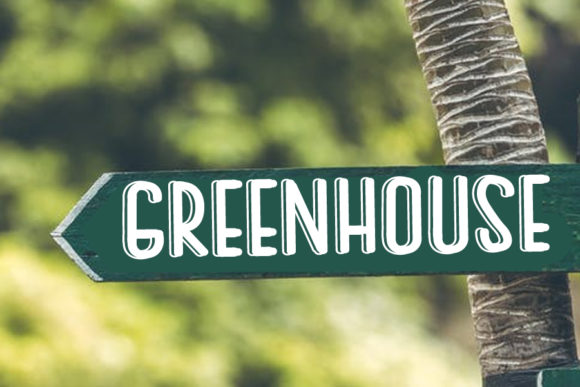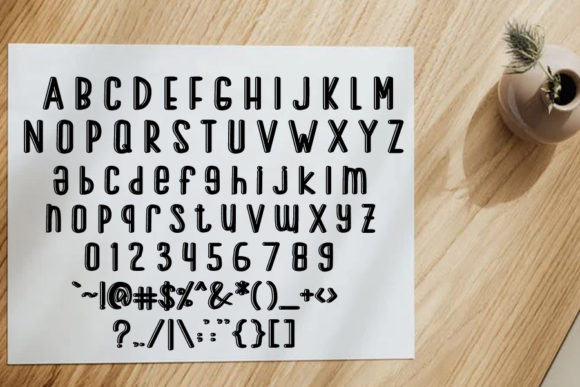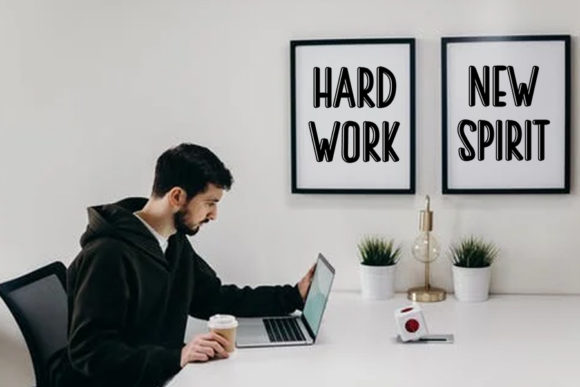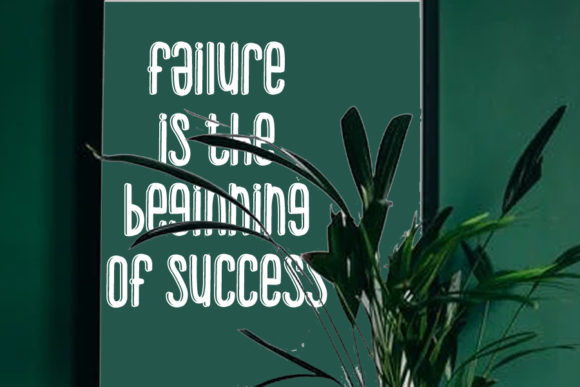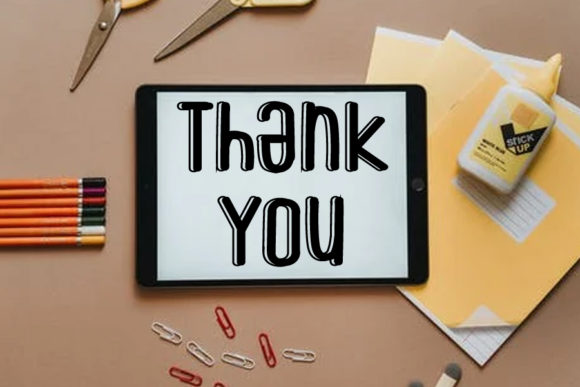
Introducing Green House Font: A Bold and Simple Lettered Display Font
Are you tired of using the same old fonts in your designs? Look no further than Green House Font, a bold and simple lettered display font that’s sure to elevate your creations. Whether you’re a designer, crafter, or simply someone who loves to dabble in typography, Green House Font is an incredibly valuable asset to have in your font library.
What Makes Green House Font So Special?
Green House Font is a versatile font that’s perfect for a wide range of projects. Its bold and simple design makes it easy to read and understand, while its lettered display style adds a touch of elegance and sophistication. Whether you’re creating a logo, poster, or social media graphic, Green House Font is sure to make your design stand out.
Key Features of Green House Font
• Bold and Simple Design: Green House Font features a bold and simple design that’s easy to read and understand.
• Lettered Display Style: The font’s lettered display style adds a touch of elegance and sophistication to any design.
• Versatile: Green House Font is perfect for a wide range of projects, from logos and posters to social media graphics and more.
How to Use Green House Font in Your Designs
Green House Font is incredibly easy to use in your designs. Here are a few tips to get you started:
• Use it as a Header Font: Green House Font is perfect for use as a header font, adding a bold and eye-catching touch to your designs.
• Pair it with Other Fonts: Green House Font pairs well with a variety of other fonts, making it easy to create visually appealing designs.
• Experiment with Different Colors: Green House Font looks great in a variety of colors, so don’t be afraid to experiment and find the perfect hue for your design.
Why Designers and Crafters Love Green House Font
Green House Font has quickly become a favorite among designers and crafters, and for good reason. Here are a few reasons why:
• It’s Versatile: Green House Font is perfect for a wide range of projects, making it a valuable asset to have in your font library.
• It’s High-Quality: Green House Font is a high-quality font that’s designed to look great in any design.
In conclusion, Green House Font is a bold and simple lettered display font that’s sure to elevate your designs. Its versatility, ease of use, and high-quality design make it a valuable asset to have in your font library. Whether you’re a designer, crafter, or simply someone who loves to dabble in typography, Green House Font is a great choice for any project.